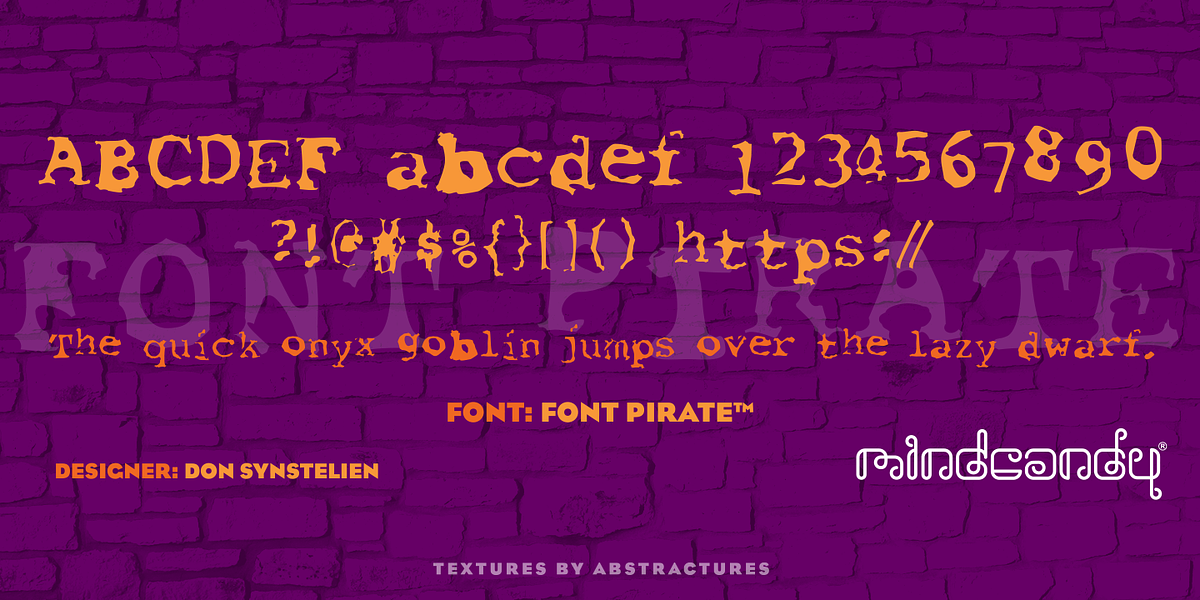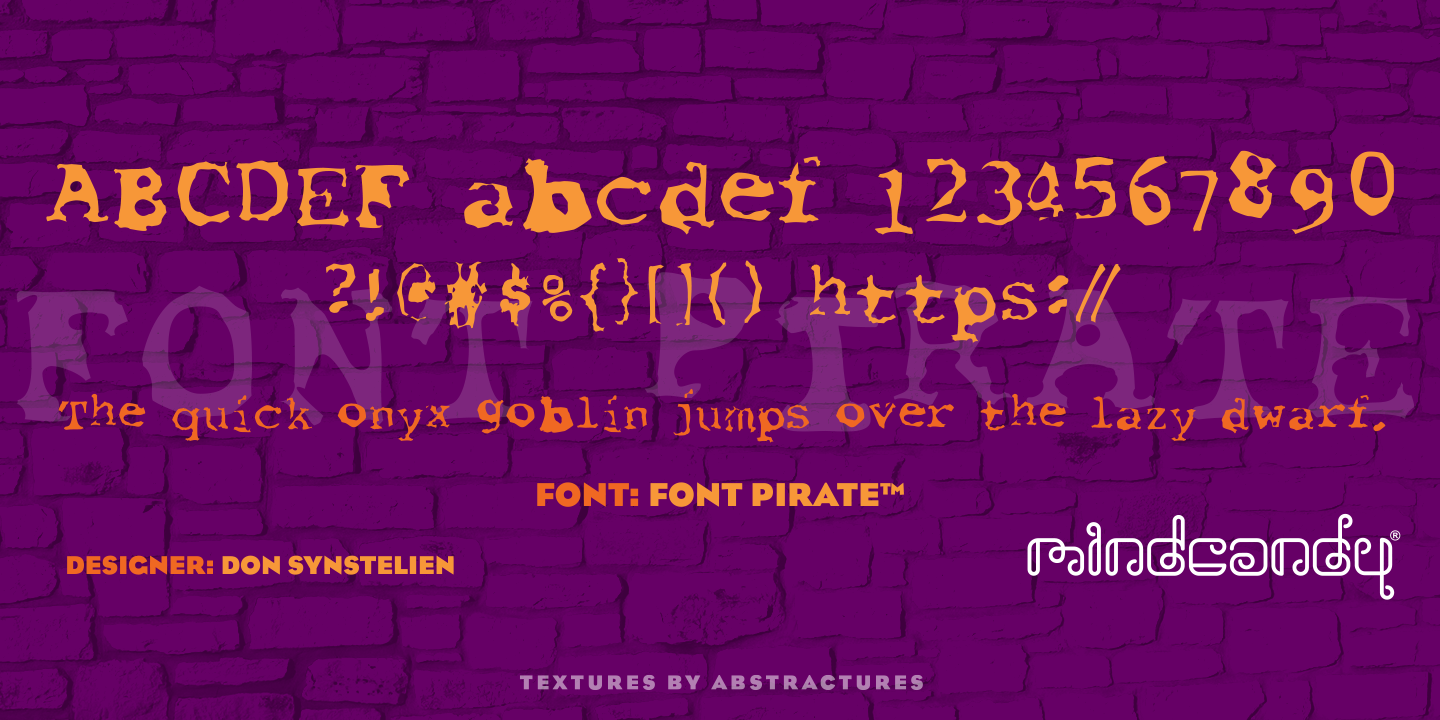
Font Pirate™
This font evokes a vintage typewriter aesthetic with a rough and grunge texture. Its monospaced nature makes it suitable for headlines, posters, and designs requiring a raw, unpolished feel.